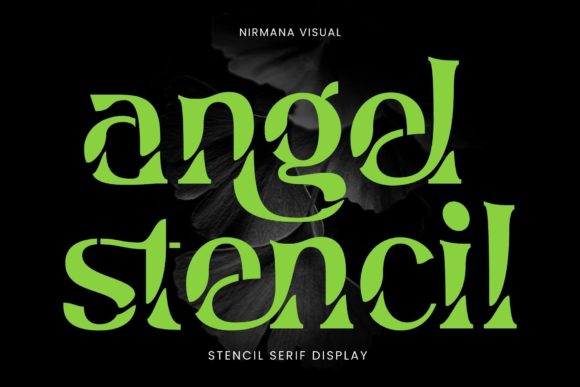
Introducing Angel Stencil Font: Elevate Your Designs with Elegance and Sophistication
In the world of typography, fonts play a crucial role in conveying the tone and personality of a design. For designers and crafters seeking an elegant, contemporary, and stylish serif font, Angel Stencil is an exceptional choice. This versatile font is perfect for a wide range of applications, including product packaging, branding projects, magazine covers, social media, wedding designs, and more.
What Makes Angel Stencil Font Stand Out?
Angel Stencil Font boasts a unique blend of classic serifs and modern flair, making it an ideal choice for designers looking to add a touch of sophistication to their work. Its elegant and refined appearance is sure to elevate your designs and make them stand out from the crowd. The font’s stencil style adds a creative and artistic touch, allowing you to express your words in a visually appealing way.
Key Features of Angel Stencil Font
- Elegant and Contemporary Design: Angel Stencil Font features a sleek and modern design that is perfect for designs that require a touch of sophistication.
- Serif Font: The font’s serif style adds a classic touch, making it suitable for a wide range of applications, from traditional to modern designs.
- Stencil Style: The stencil style gives the font a creative and artistic look, allowing you to add a unique touch to your designs.
- Versatile: Angel Stencil Font is perfect for various design projects, including product packaging, branding, magazine covers, social media, wedding designs, and more.
Use Cases for Angel Stencil Font
Angel Stencil Font is an incredibly versatile font that can be used in a variety of design projects. Here are some use cases to inspire you:
- Product Packaging: Add a touch of elegance to your product packaging with Angel Stencil Font. It’s perfect for luxury brands, cosmetics, and food packaging.
- Branding Projects: Create a sophisticated brand identity with Angel Stencil Font. It’s ideal for companies that want to convey a sense of luxury and refinement.
- Magazine Covers: Make your magazine cover stand out with Angel Stencil Font. Its elegant design is sure to grab attention and entice readers.
- Social Media: Use Angel Stencil Font to create visually appealing social media graphics, quotes, and posts that will elevate your online presence.
- Wedding Designs: Add a touch of romance and sophistication to your wedding designs, including invitations, programs, and decorations.
Tips for Using Angel Stencil Font
To get the most out of Angel Stencil Font, here are some tips to keep in mind:
- Pair with Other Fonts: Experiment with pairing Angel Stencil Font with other fonts to create a unique and visually appealing combination.
- Use in Combination with Images: Use Angel Stencil Font in combination with images to add a touch of elegance and sophistication to your designs.
| Font Name | Angel Stencil Font |
| Author | Sigit Dwipa |
Angel Stencil Font is an exceptional choice for designers and crafters seeking an elegant, contemporary, and stylish serif font. Its versatility and sophistication make it perfect for a wide range of design projects. With its stencil style and classic serifs, Angel Stencil Font is sure to elevate your designs and make them stand out from the crowd.